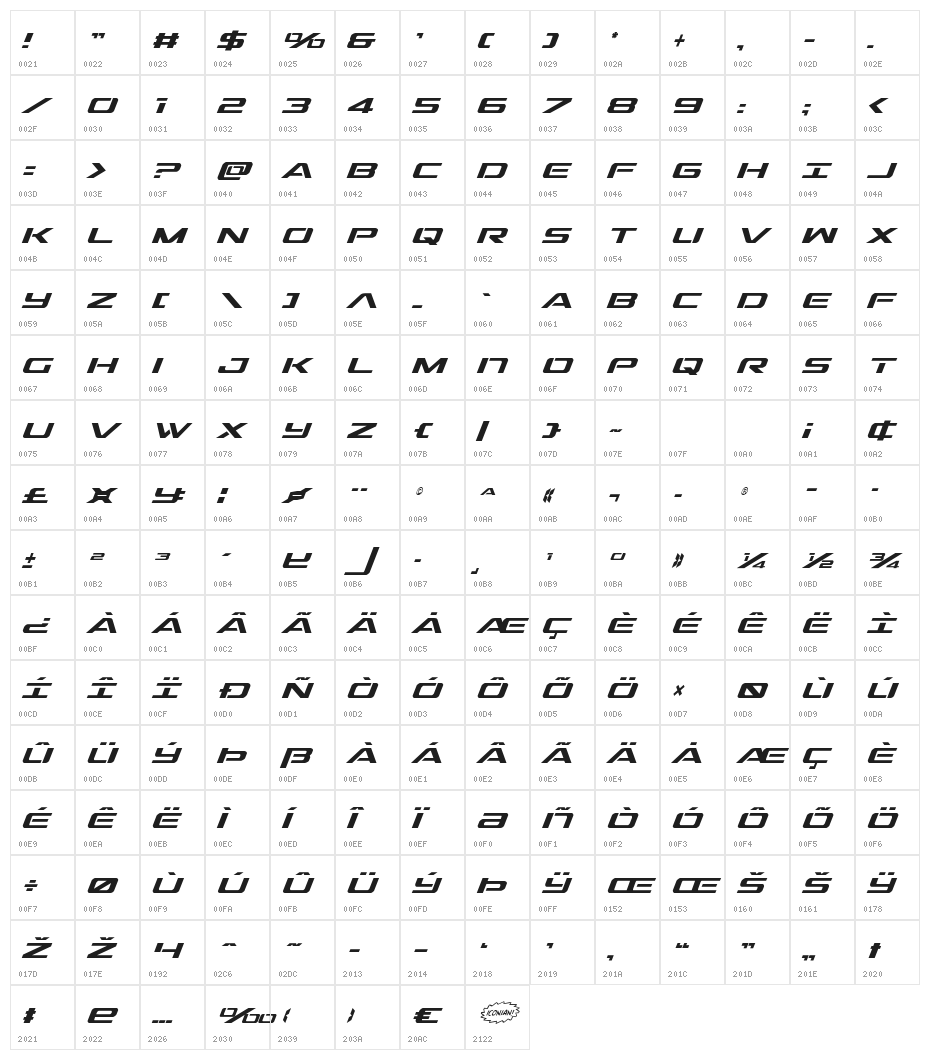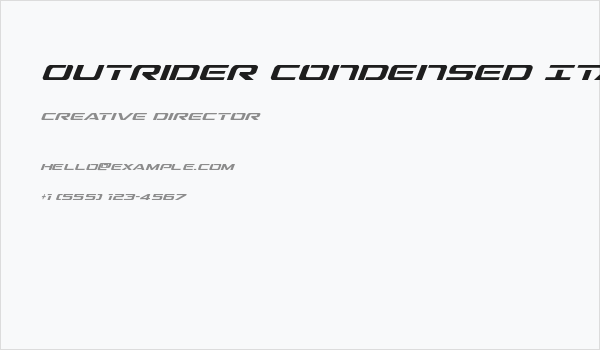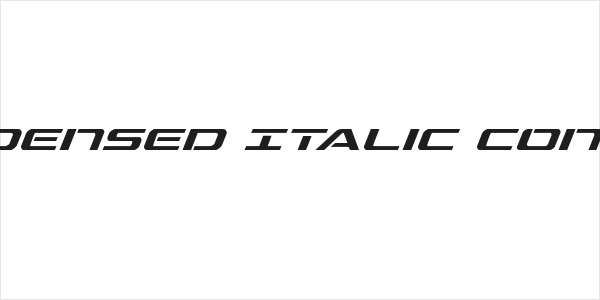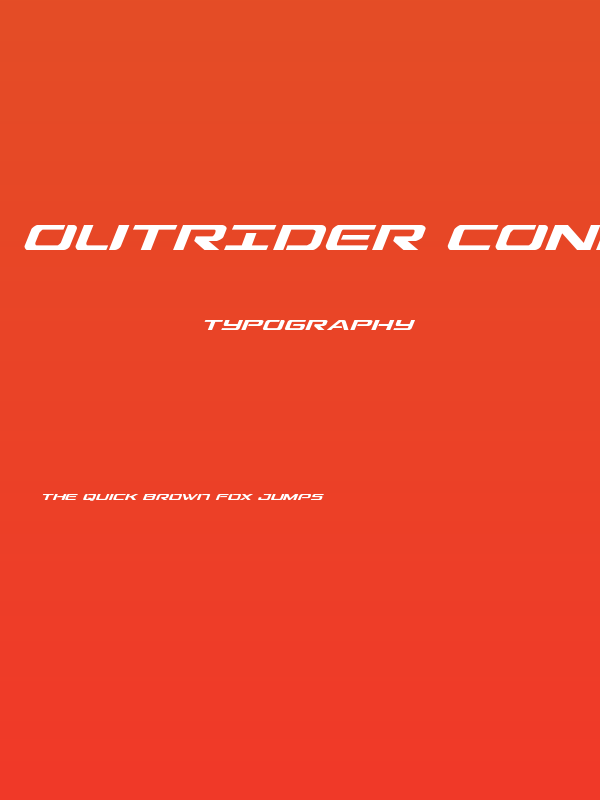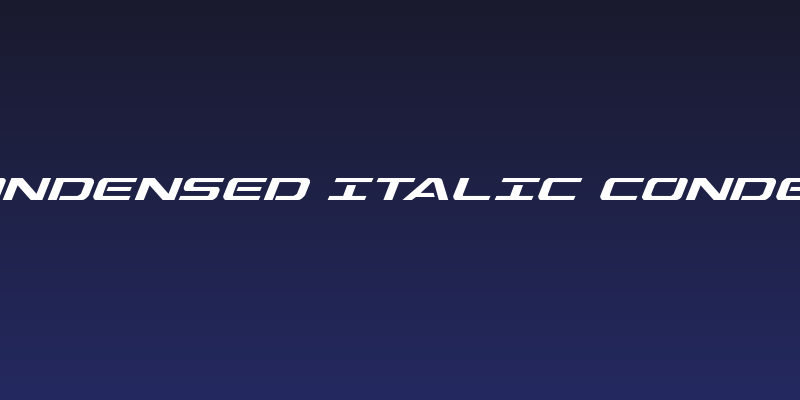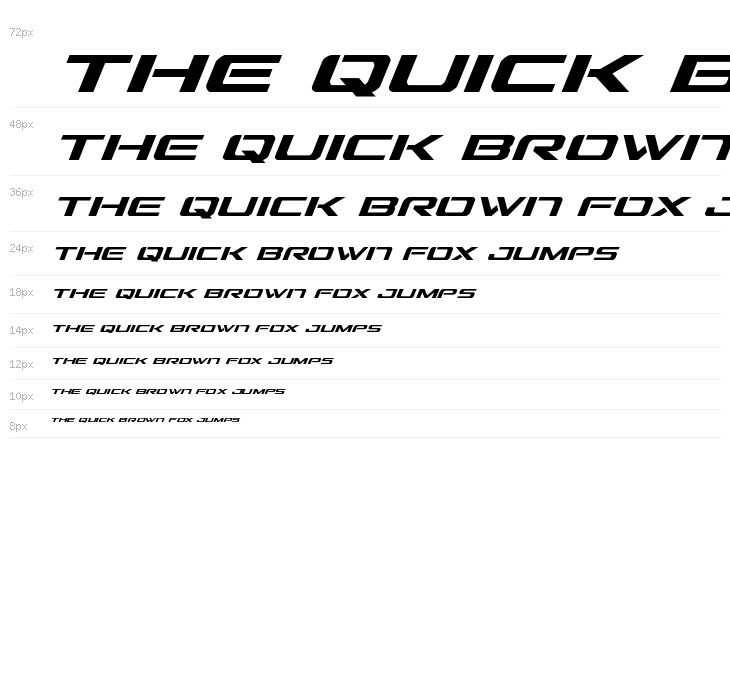
Outrider Condensed Italic Font
Outrider Condensed Italic Description
This font features a sleek, modern design with a condensed and italicized style. The characters are sharply angled, giving a sense of motion and speed. The uppercase and lowercase letters maintain a consistent slant, enhancing the dynamic appearance. The numerals and special characters follow the same stylistic approach, ensuring uniformity across all glyphs. The overall look is futuristic and tech-inspired, making it suitable for projects that require a bold and contemporary aesthetic.
| Use Case | Logos, Headlines, Branding |
| Proposed Projects | Ideal for technology branding, sports team logos, automotive advertisements, and futuristic design projects. |